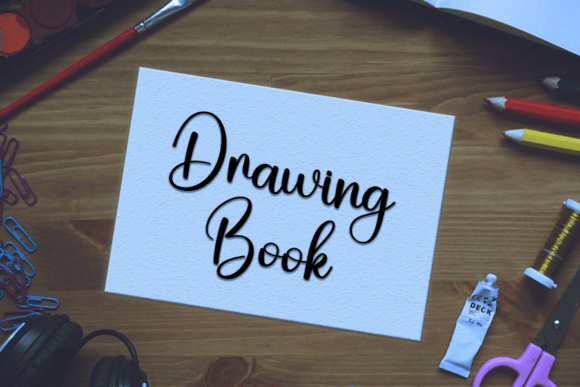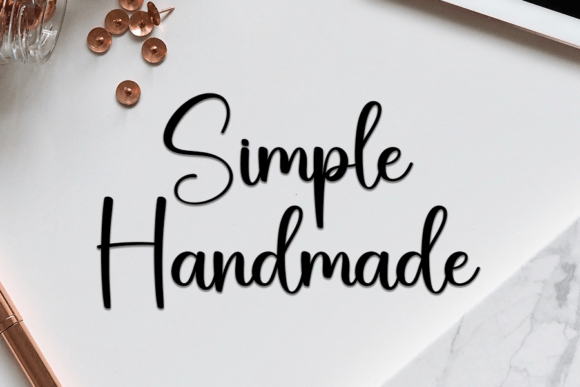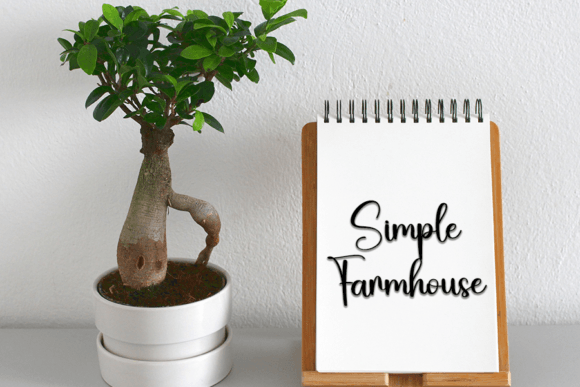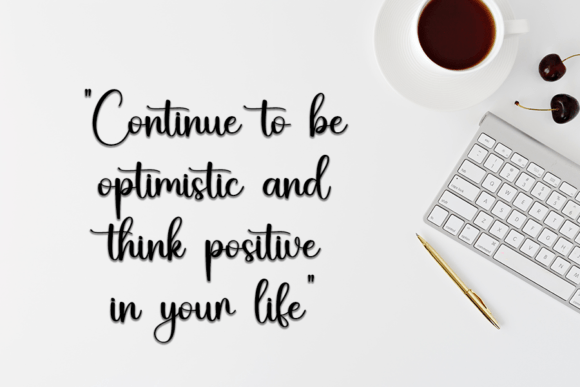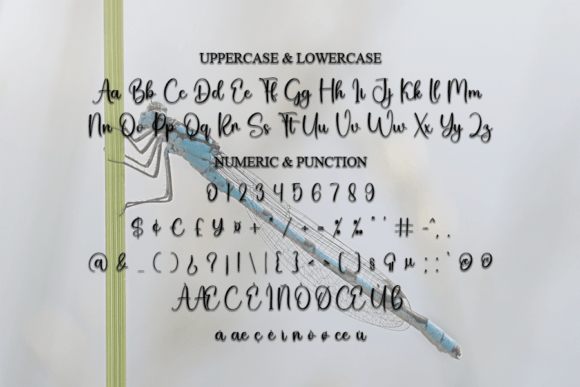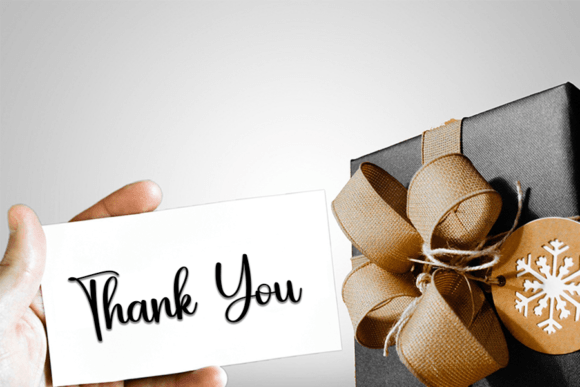
Introducing Dragonfly Font: A Delicate Handwritten Style for Unique Designs
In the world of typography, fonts play a crucial role in conveying the tone and personality of a design. For crafters, designers, and DIY enthusiasts, finding the perfect font can be a daunting task. However, if you’re looking for a cool and unique design element, look no further than the Dragonfly Font. This delicate handwritten font is carefully crafted to add a touch of elegance and whimsy to your projects.
What is Dragonfly Font?
Dragonfly Font is a beautiful, hand-crafted typeface designed for those who appreciate the art of handwritten typography. Its intricate strokes and delicate lines evoke a sense of fragility and sophistication, making it perfect for a variety of design applications. Whether you’re creating invitations, writing letters, or designing food products, Dragonfly Font is sure to impress.
Key Features of Dragonfly Font
• Handwritten style: Dragonfly Font boasts a genuine handwritten look, complete with subtle imperfections and variations in line width.
• Delicate and elegant: The font’s intricate strokes and lines create a sense of refinement and poise.
• Versatile: Use Dragonfly Font for a range of design projects, from titles and headings to body text and captions.
• Easy to read: Despite its delicate nature, Dragonfly Font remains clear and legible, making it perfect for longer texts.
Creative Uses for Dragonfly Font
So, what can you create with Dragonfly Font? The possibilities are endless! Here are a few ideas to get you started:
• Invitations and greeting cards: Add a touch of whimsy and elegance to your invitations and greeting cards with Dragonfly Font.
• Food product labels: Use Dragonfly Font to create charming labels for your homemade food products, such as jams, honey, and baked goods.
• Title pages and headings: Add a decorative touch to your title pages, headings, and subheadings with Dragonfly Font.
• Handwritten letters: Write beautiful, handwritten letters to friends and family using Dragonfly Font.
Tips for Using Dragonfly Font
To get the most out of Dragonfly Font, here are a few tips to keep in mind:
• Pair with complementary fonts: Combine Dragonfly Font with other fonts to create a unique and visually appealing typography scheme.
• Experiment with colors: Try pairing Dragonfly Font with different colors and textures to add depth and interest to your design.
• Pay attention to spacing: Make sure to leave sufficient spacing between lines and words to maintain readability and elegance.
In conclusion, Dragonfly Font is a beautiful and versatile handwritten font that’s perfect for designers, crafters, and DIY enthusiasts. Its delicate and elegant style makes it ideal for a range of design applications, from invitations and labels to title pages and handwritten letters. With its ease of use and flexibility, Dragonfly Font is sure to become a staple in your design toolkit.